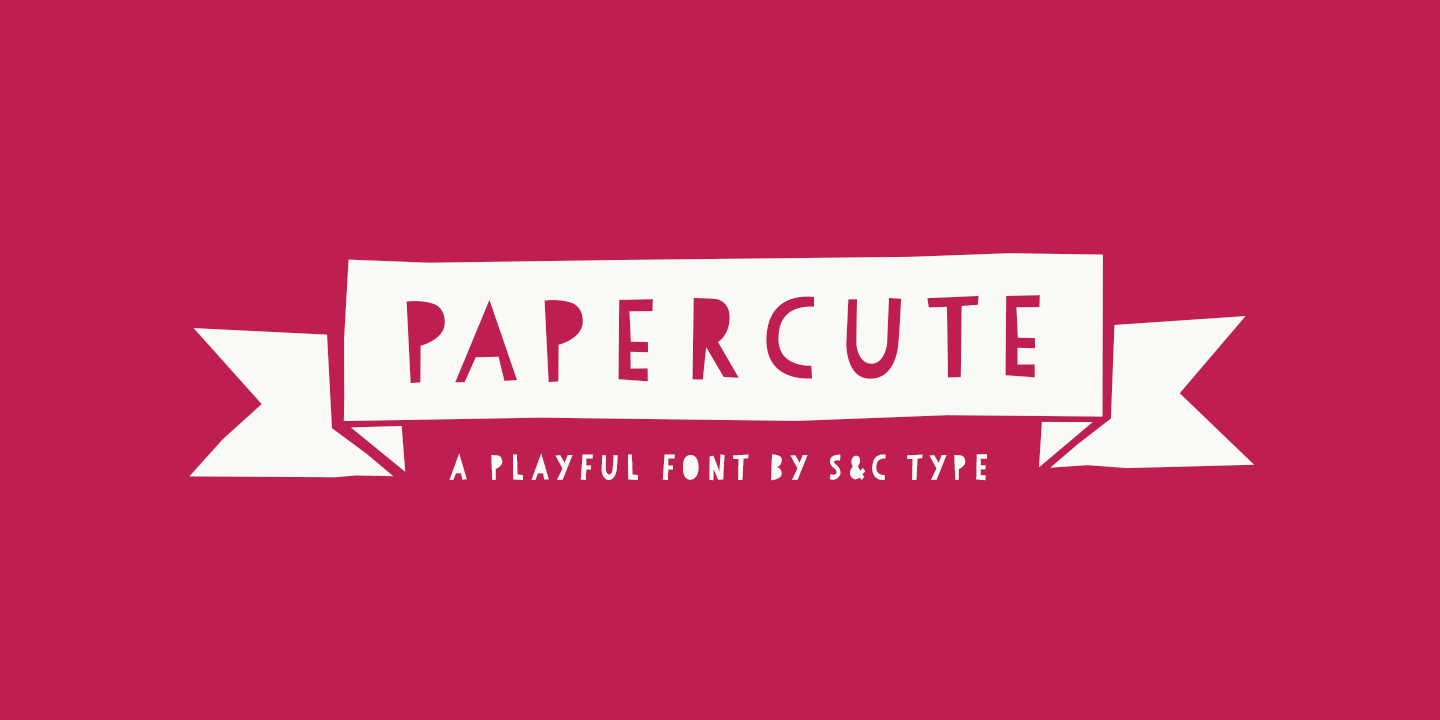
Papercute Font is perfect for handmade craft branding, artisan product packaging, scrapbooking designs, DIY project materials, creative workshop logos, paper art exhibitions, handwritten-style invitations, craft store marketing, artistic greeting cards, and charming social media graphics.
What makes Papercute Font exciting is its authentic handcrafted charm that captures the delicate artistry of paper cutting and traditional craftsmanship. This enchanting typeface embodies the personal touch and creative spirit of handmade artistry, featuring unique letterforms that appear carefully cut from paper with artistic precision. The font's organic irregularities and handcrafted character instantly communicate authenticity, creativity, and personal attention to detail, making it the ideal choice for brands seeking to connect with audiences who value artisanal quality and handmade aesthetics.
Papercute Font family includes artistic variations such as Regular, Bold, Light, Rough, Clean, Outlined, and Textured styles, providing designers with comprehensive options for creating authentic handcrafted visual experiences across various creative applications and artistic projects.
The Papercute Font Free Download provides designers with an exceptional tool for creating warm, personal connections through typography that celebrates human creativity and craftsmanship. This charming typeface combines artistic authenticity with practical functionality, featuring carefully designed irregularities that maintain excellent readability while expressing genuine handmade character. Creative professionals consistently choose this font for projects requiring personal touch and artisanal appeal that resonates with audiences seeking authentic, human-centered design experiences.
Whether you're designing branding for craft businesses, creating marketing materials for handmade products, developing packaging for artisan goods, or crafting promotional campaigns for creative workshops, Papercute Font delivers unmatched handcrafted authenticity. The font's versatility shines in both display applications and body text settings, maintaining its distinctive artisanal personality while ensuring comfortable reading experiences across various media.
The delightful design elements of Papercute Font include gentle edge variations, organic curves, and thoughtful spacing that mimics the natural imperfections of hand-cut paper typography. These characteristics make it perfect for craft stores, art studios, handmade jewelry brands, custom stationery businesses, creative workshops, farmers markets, artisan food products, and boutique retailers seeking to communicate genuine craftsmanship and personal care.
Marketing professionals appreciate how Papercute Font immediately establishes emotional connections with customers who value authenticity and artistic expression. Its handcrafted appearance helps brands differentiate themselves from mass-produced competitors while building trust with audiences who prioritize quality, creativity, and personal attention in their purchasing decisions.
The font's exceptional ability to convey warmth and creativity makes it particularly valuable for seasonal campaigns and personalized marketing initiatives. From holiday craft promotions and wedding stationery to artisan market advertising and creative workshop materials, Papercute Font maintains its charming presence while ensuring clear communication and memorable brand recognition.
For designers committed to celebrating human creativity and connecting with audiences through authentic, handcrafted design experiences, this font provides the perfect foundation for heartfelt visual solutions that honor traditional craftsmanship while appealing to contemporary appreciation for artisanal quality.